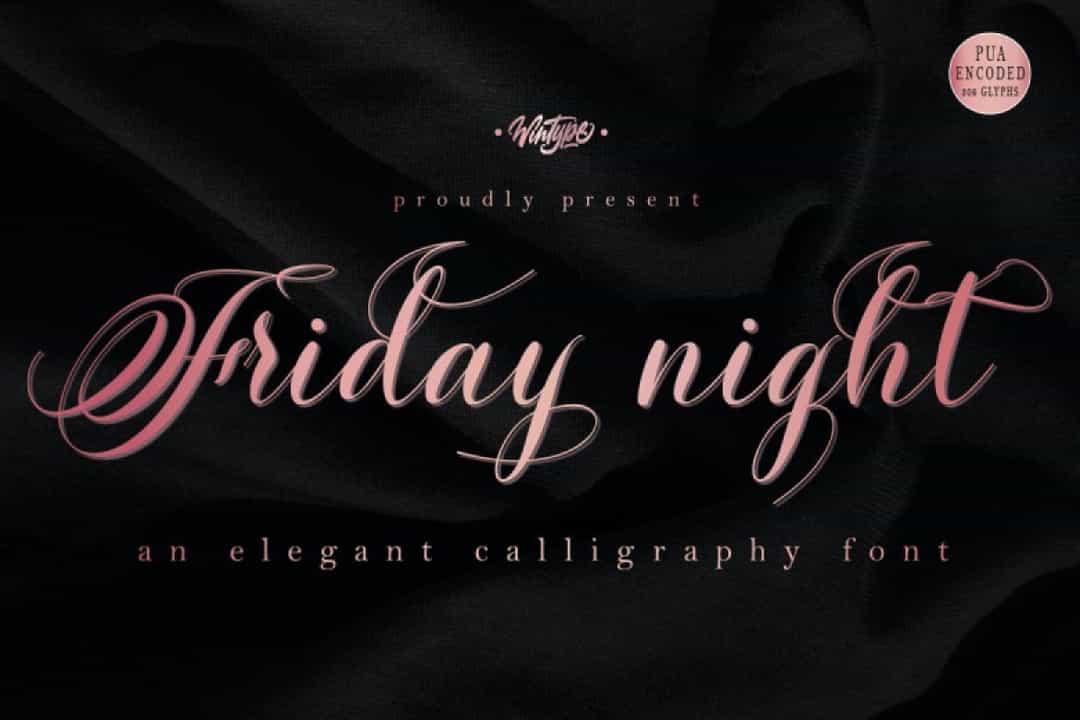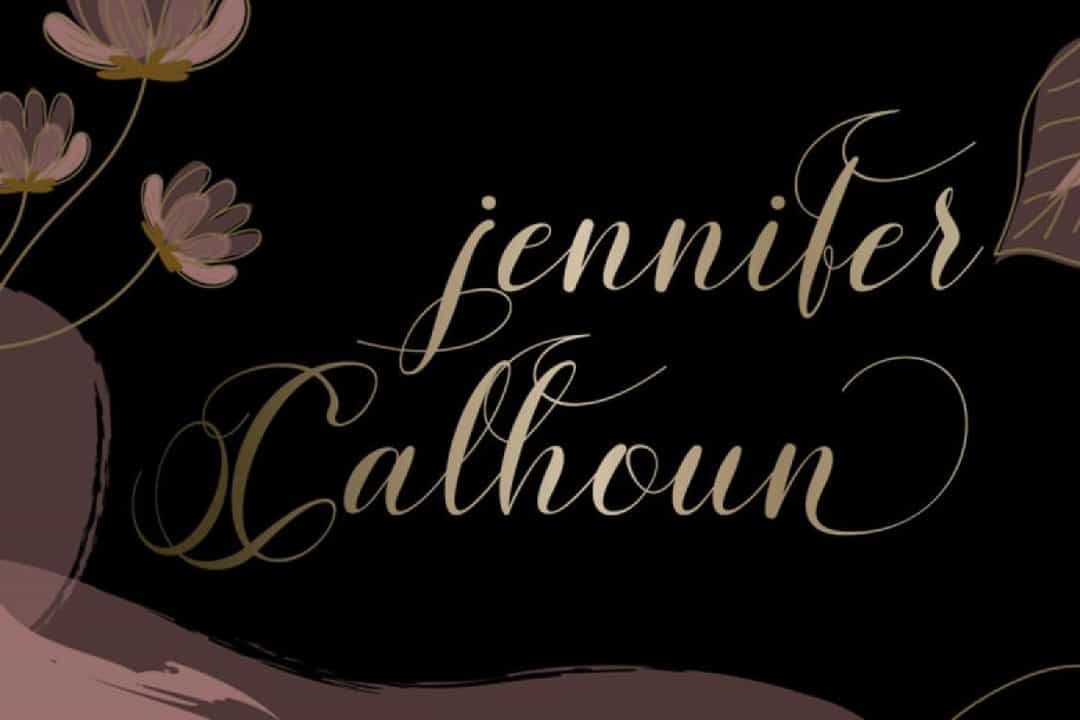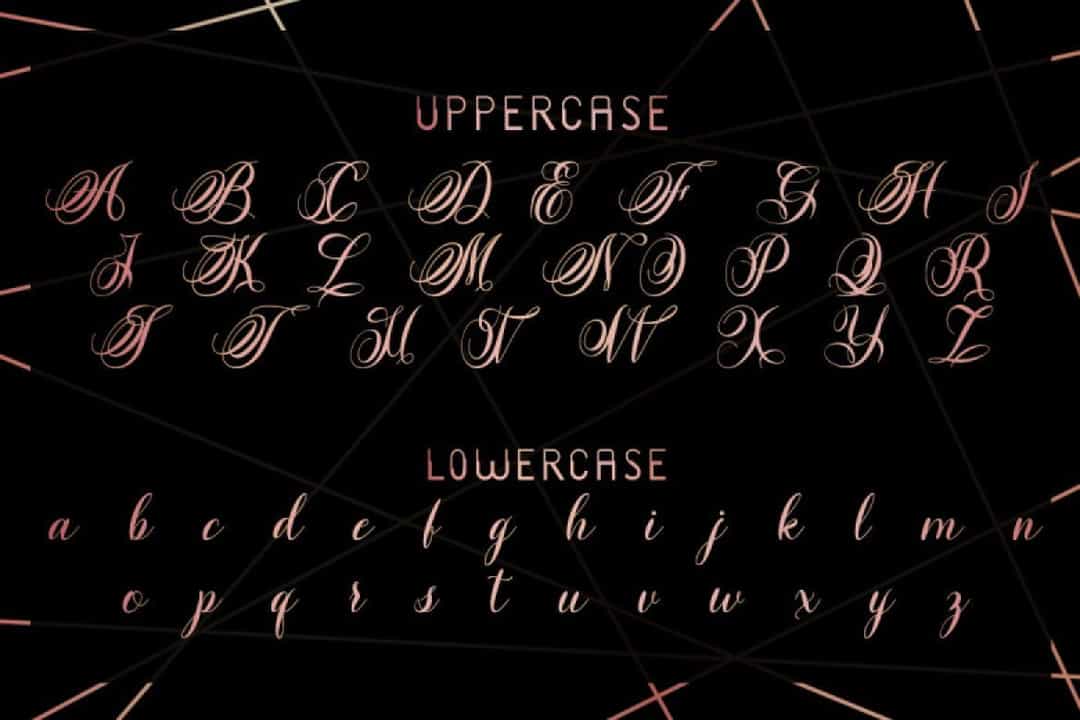
Friday Night is an elegant and fully-featured Calligraphy Font featuring various characters and PUA ENCODED functions for easy handwriting design concepts. Perfect as invitations or branding designs; Friday Night fonts make creating design concepts easier.